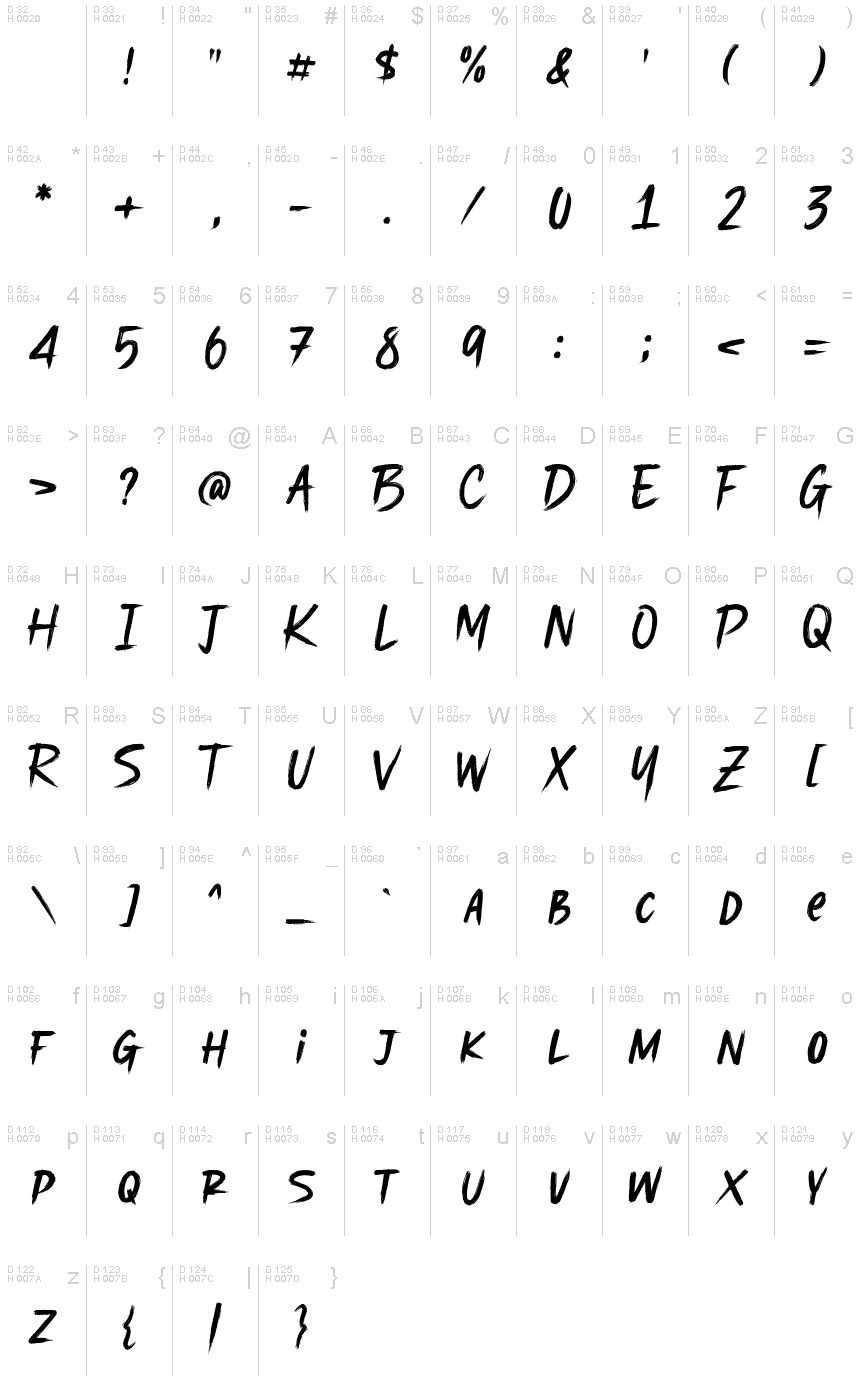
Moviecal
Looking for a font that captures the essence of creativity and playfulness? Look no further than the Moviecal semi-bold brush font by Allouse.Studio. This charming typeface is perfect for projects that require an element of whimsy, such as children's books, greeting cards, or social media graphics. With its bold strokes and playful curves, Moviecal brings a lively energy to any design. Whether you're looking to add a touch of personality to your branding or create eye-catching headlines, this semi-bold brush font is the perfect choice.